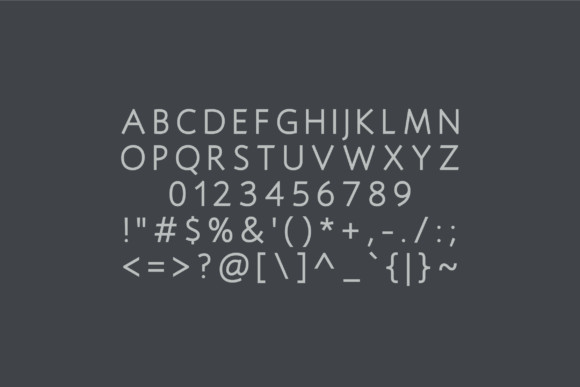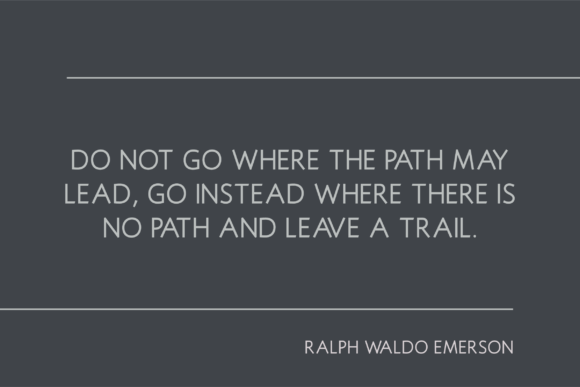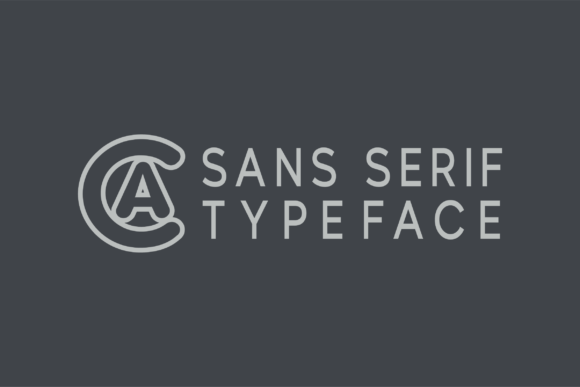
Introduction to Kastorion Font
Discover Kastorion, your newest secret weapon in design.
This modern, sophisticated sans serif typeface holds the key to transforming your work with its full array of upper case characters, numeric characters from 0 to 9 and a diverse selection of punctuation and symbols Unleash your creativity with Kastorionโs remarkable versatility.
Key Features of Kastorion Font
Why Choose Kastorion Font?
Kastorion Font offers exceptional quality and versatility, making it a valuable addition to your design toolkit. Whether you’re creating for personal projects or commercial use, Kastorion Font delivers professional results.